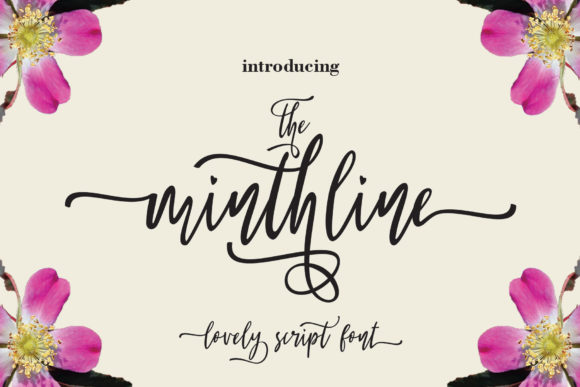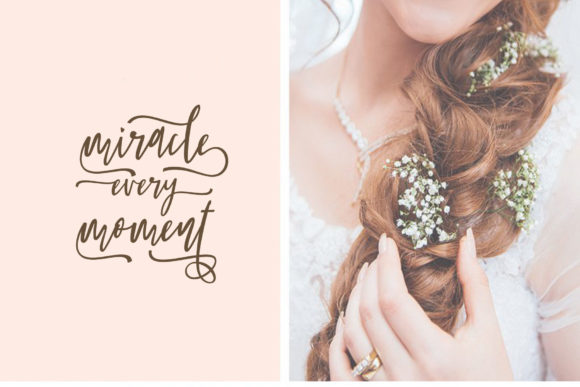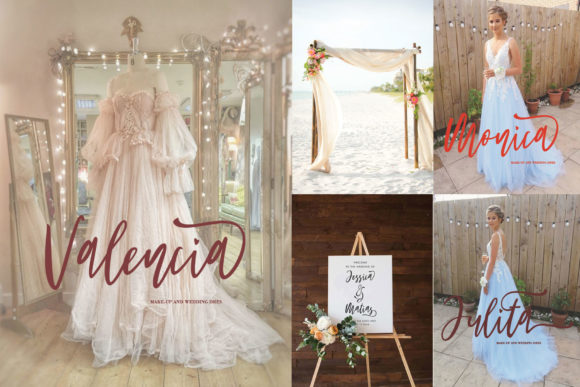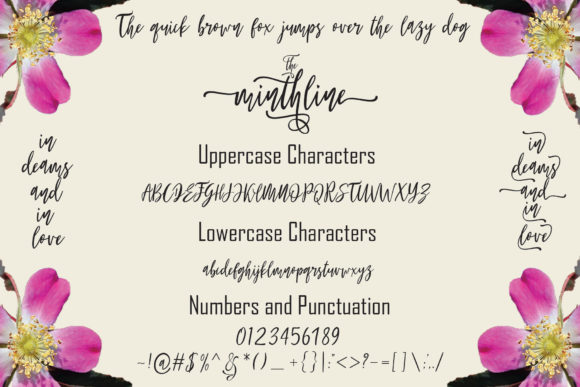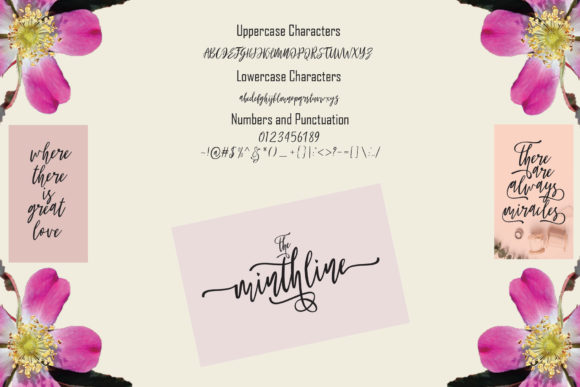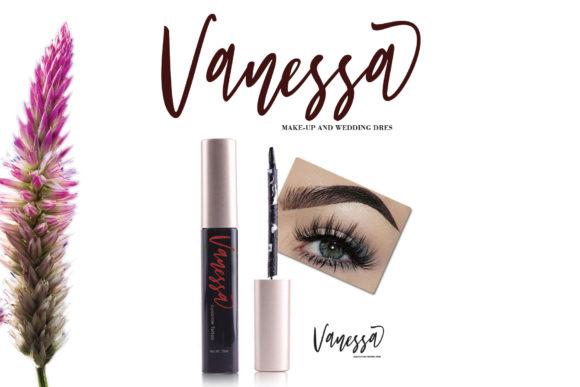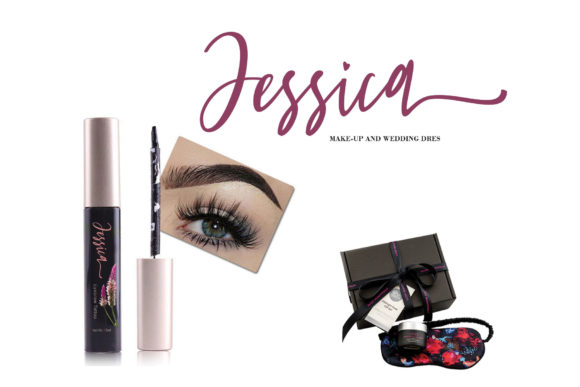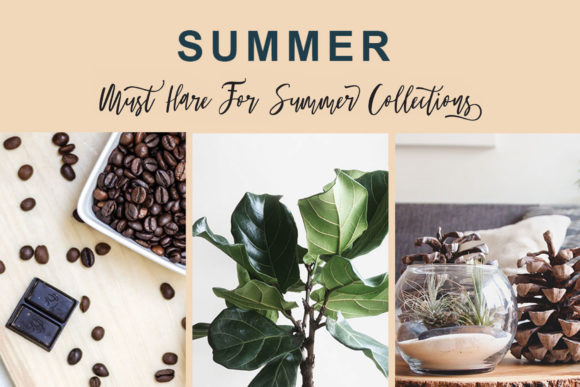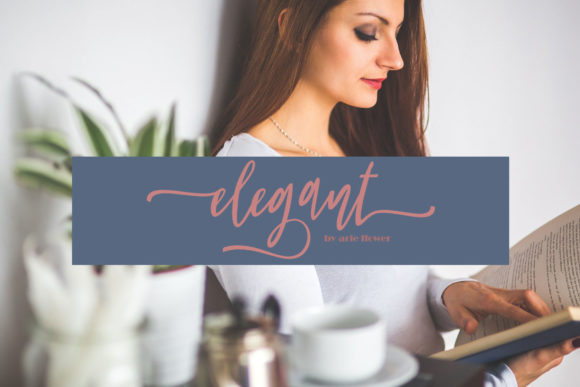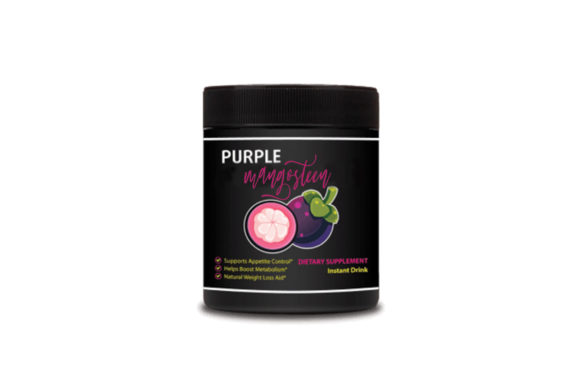
The Minthline Script Font
About The Minthline Script Font
The Minthlineis a one-of-a-kind script font with a smooth handwriting style. It features beautiful letters that will transform any design idea into a true piece of art!